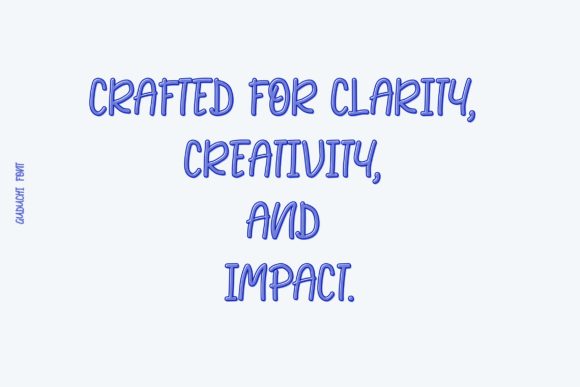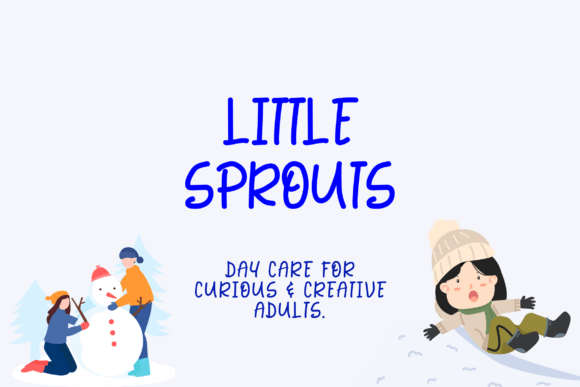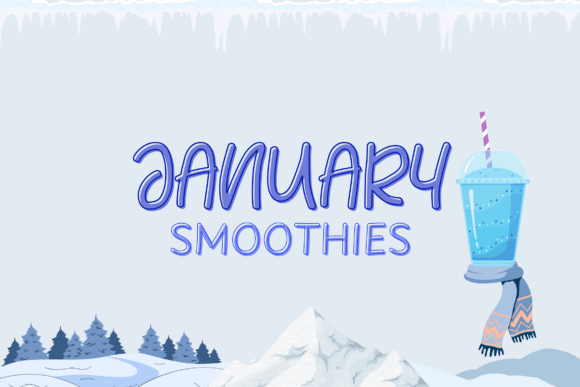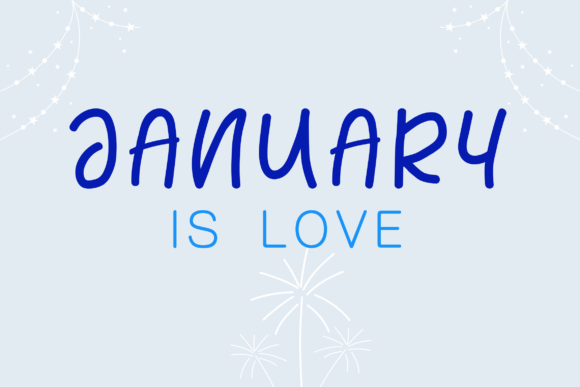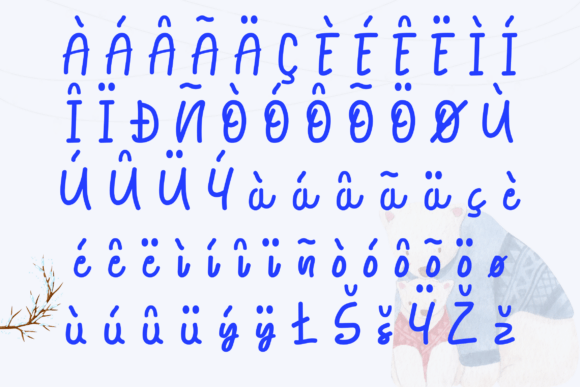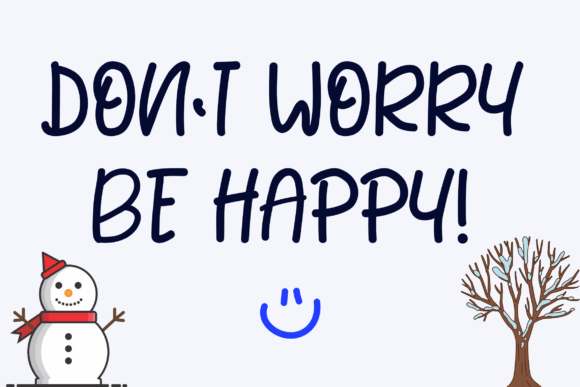
Introduction to Guduchi Handmade Font
There’s something special about holding a freshly printed invitation or a handmade card, feeling the texture and seeing the unique imperfections that make it truly special. It’s this kind of personal touch that designers strive for in their creative projects, and the right font can make all the difference.
When it comes to adding a cozy and friendly vibe to your designs, the Guduchi Handmade Font is an excellent choice. This fun and creative font is perfect for making logos, cards, invitations, and crafts that exude warmth and character. With its natural style and flexibility, it works well for a variety of design ideas, from rustic to DIY and casual themes.
Key Features of Guduchi Handmade Font
- Unique Hand-Drawn Style: Guduchi Handmade Font boasts a distinctive, hand-drawn design perfect for creative projects that require a personal touch.
- High-Quality Design Resource: This font is a high-quality design resource ideal for designers, artists, and crafters seeking a unique and elegant look.
- Transparent Background: Guduchi Handmade Font comes with a transparent background, making it easy to use with various design elements and backgrounds.
Honest Review: Guduchi Handmade Font
I recently had the chance to work with the Guduchi Handmade Font, and I must say it’s been a delightful experience. The font is perfect for adding a personal touch to any creative project, from invitations to branding materials.
- ✨ High quality design: The font is beautifully crafted with intricate details and a unique character.
- ✨ Transparent background: The font’s transparent background makes it easy to use in various design scenarios.
- ⚠️ Limited font styles: While the font is beautiful, it’s limited to a single style, which may not be suitable for all design projects.
- ⚠️ Limited language support: I noticed that the font doesn’t support all languages, which could be a drawback for designers working on international projects.
Overall, I’m impressed with the Guduchi Handmade Font. It’s a great addition to any designer’s toolkit, and I appreciate the high-quality design and free download option. With some additional styles and language support, this font would be even more versatile and valuable to designers.
Design Tips and Tricks
To get the most out of Guduchi Handmade Font, experiment with different font sizes, colors, and combinations with other fonts. You can also use the font with a transparent background for a unique design effect.
Guduchi Handmade Font is ideal for creative projects, such as invitations, brochures, and social media graphics. Its high-quality design makes it a great resource for designers and non-designers alike.